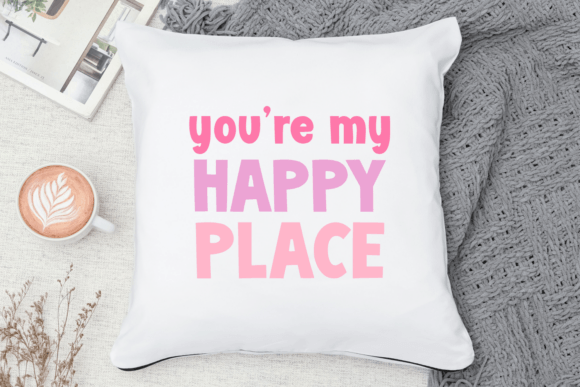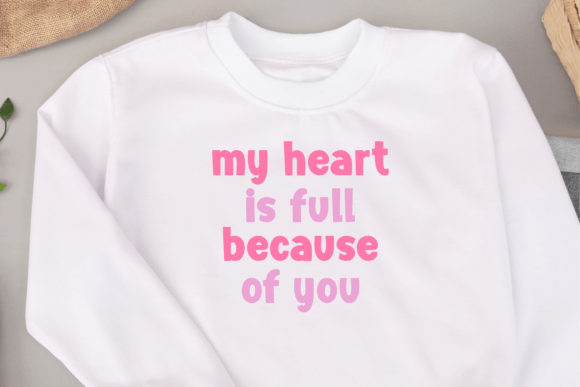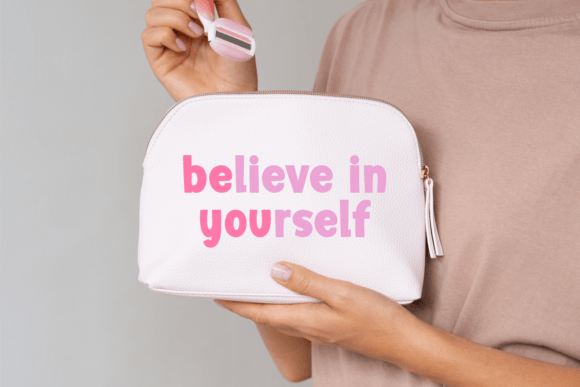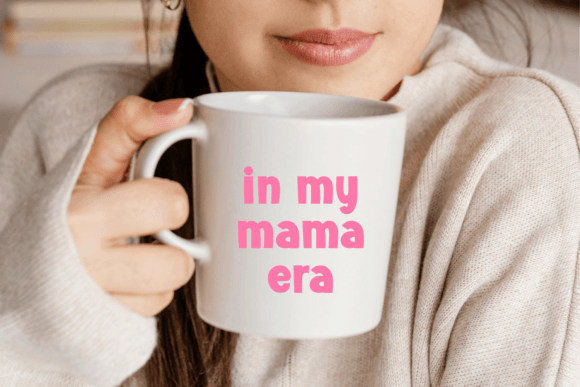
Introducing Adore Heart Font: The Perfect Companion for Valentine’s Day Designs
Valentine’s Day is just around the corner, and with it comes the opportunity to create thoughtful and personalized gifts for loved ones. As a designer or crafter, you’re likely on the lookout for a font that can help you convey the warmth and affection of the holiday. Look no further than Adore Heart, a charming and spirited font that’s tailor-made for designs that spread love and warmth.
The Perfect Font for Valentine’s Day Designs
Adore Heart is more than just a font – it’s a way to infuse your designs with the joy and romance of Valentine’s Day. With its playful and whimsical feel, this font is perfect for creating delightful and heartfelt keepsakes. Whether you’re designing t-shirts, pillows, mugs, or tote bags, Adore Heart is the perfect companion to help you create something truly special.
What Makes Adore Heart So Special?
So, what sets Adore Heart apart from other fonts? Here are just a few features that make it a standout choice for Valentine’s Day designs:
• Charming and Spirited: Adore Heart is a font that’s full of personality and charm. Its unique and spirited feel makes it perfect for creating designs that are both fun and romantic.
• Perfect for a Variety of Products: Whether you’re designing t-shirts, pillows, mugs, or tote bags, Adore Heart is a versatile font that can be used on a wide range of products.
• Easy to Read and Write: Despite its playful feel, Adore Heart is a highly legible font that’s easy to read and write. This makes it perfect for creating designs that need to convey a message or tell a story.
How to Use Adore Heart in Your Designs
Using Adore Heart in your designs is easy. Here are a few tips to get you started:
• Pair it with Other Fonts: Adore Heart pairs perfectly with other fonts, making it easy to create designs that are both visually interesting and easy to read.
• Experiment with Colors: The right color can really make your design pop. Experiment with different colors and combinations to find the perfect look for your Adore Heart design.
• Don’t Be Afraid to Get Creative: Adore Heart is a font that’s meant to be used creatively. Don’t be afraid to experiment and try new things – it’s all part of the design process!
Ideas for Using Adore Heart
So, what can you create with Adore Heart? Here are a few ideas to get you started:
• Valentine’s Day Cards: Create personalized Valentine’s Day cards for friends and loved ones using Adore Heart.
• T-Shirts and Apparel: Design t-shirts, hoodies, and other apparel items that are perfect for Valentine’s Day.
• Mugs and Water Bottles: Create personalized mugs and water bottles that make perfect gifts for friends and loved ones.
• Pillows and Home Decor: Design pillows, tote bags, and other home decor items that are perfect for Valentine’s Day.
Adore Heart is a font that’s sure to capture the joy and romance of Valentine’s Day. With its charming and spirited feel, this font is perfect for creating delightful and heartfelt keepsakes. Whether you’re a designer or crafter, Adore Heart is a must-have font for anyone looking to create special and personalized gifts for loved ones. So why wait? Download Adore Heart today and start creating your own Valentine’s Day designs!